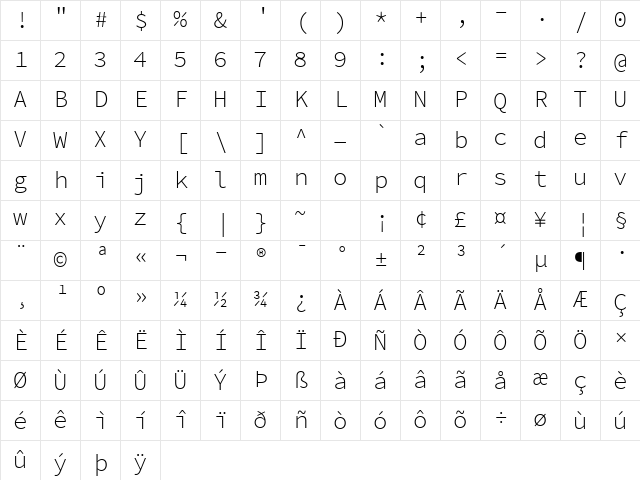
SauceCodePro NF Regular
Designer: Paul D. Hunt, Teo Tuominen
Complete SauceCodePro NF Regular glyph index. Displaying only characters natively supported by SauceCodePro NF Regular font.
Design Context for SauceCodePro NF
SauceCodePro NF uses fixed-width spacing throughout, giving it the structured, systematic character associated with coding environments and technical documentation.
Pro Tip: Use SauceCodePro NF with slightly increased line-height for extended reading - fixed-width spacing can feel dense in longer passages without extra breathing room.